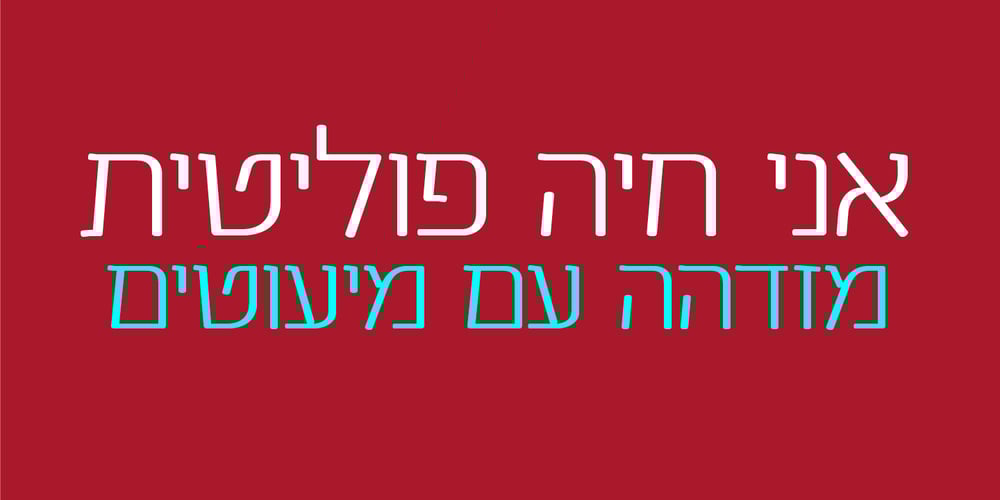
Ketamine Two MF Font Family was designed by Daniel Levy and published by Masterfont. Ketamine Two MF contains 3 styles and family package options. A practical font family with 2 weights for all your day by day design needs: headlines, body text, signage etc.High legibility at small sizes. An extended sans serif typeface with rounded endings that provides unique appearance while keeping high legibility.